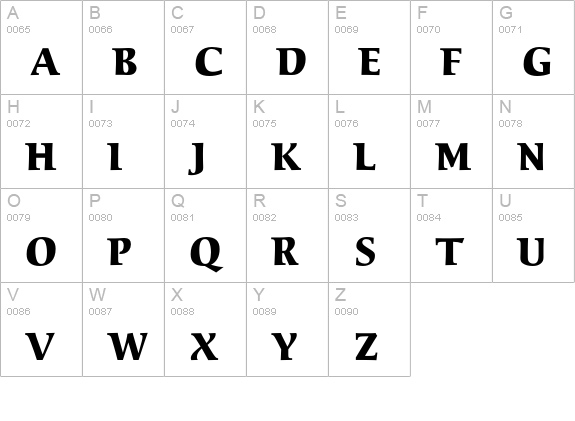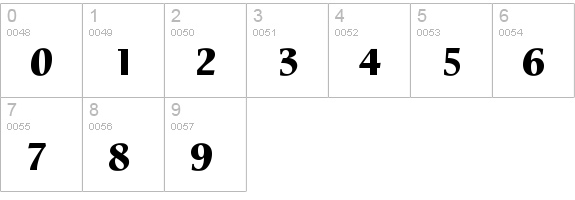
SierraEF-Bold is a strong, high-contrast variant in the SierraEF typeface family \xE2\x80\x94 well suited to headlines, attention-grabbing titles, and strong calls-to-action.
SierraEF-Bold is a bold and striking font that exudes confidence and strength. With its clean lines and sharp edges, this font is perfect for making a bold statement in any design project. Whether you're creating a powerful logo, eye-catching headlines, or attention-grabbing posters, SierraEF-Bold will command attention and leave a lasting impression. Not only is SierraEF-Bold visually captivating, but it is also versatile and adaptable. Its bold weight ensures maximum visibility, even at smaller sizes. This font is designed to stand out and make a strong impact, no matter the context. What's even better is that SierraEF-Bold is available for free! You can easily download this font from FontsMarket.com, a reputable source for high-quality fonts. With just a few clicks, you can have this powerful font at your fingertips, ready to elevate your design projects to new heights. So why wait? Embrace the power and versatility of SierraEF-Bold and take your designs to the next level. Download this font today and unleash your creativity with this freely available gem from FontsMarket.com.